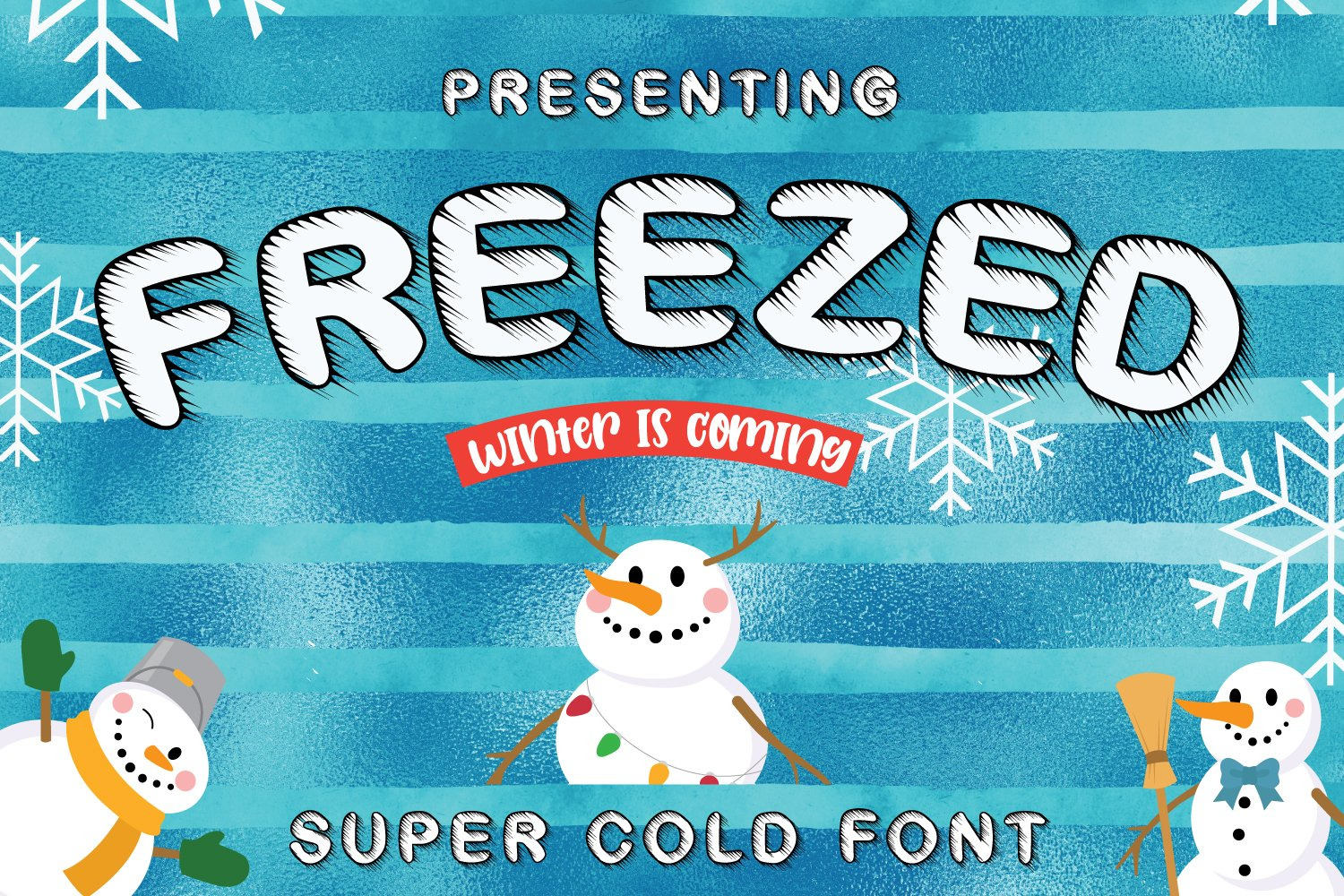
Freeze - Chilled Font for Christmas
Presenting Cute font for you. Freeze - Super Cold Winter Font can be used in tons of projects. You can print it, use it for the web, or for almost any type of project that suits best.
- UPPER Case only Letters A to Z and 0 to 9
- Super-Cute and Creative